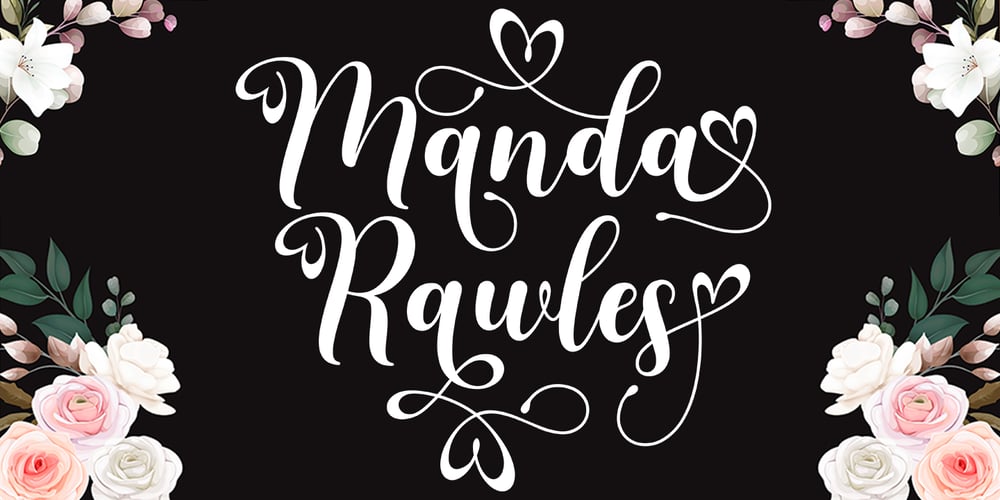
Manda Rawles Font Family was designed by Wais Alqarni and published by Ws Studio. Manda Rawles contains 1 styles and family package options. Manda Rawles is a dazzling script font. This font is neatly crafted and very detailed. Whatever the topic, this font will be a great asset to your font library, as it has the potential to enhance any creation.This font is PUA encoded which means you can access all the glyphs and sweeps easily!